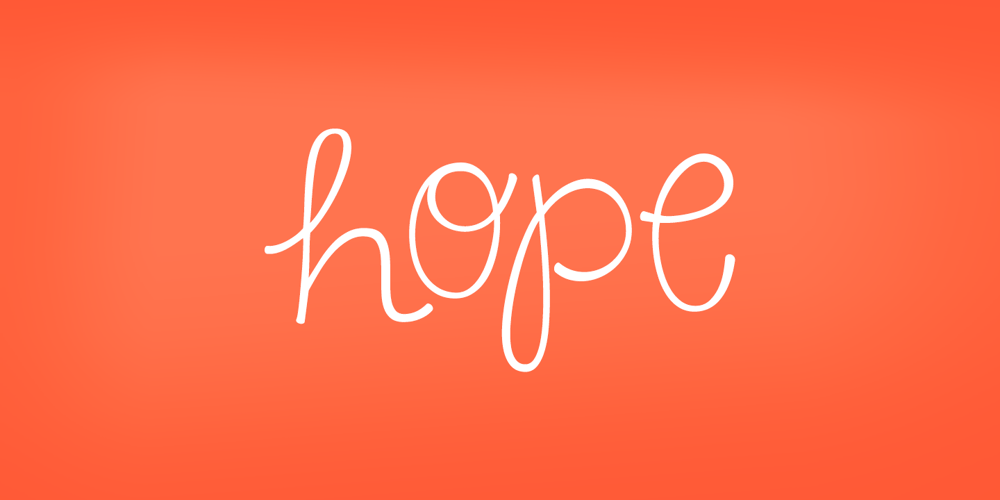
KG Say Something Font Family was designed by Kimberly Geswein and published by Kimberly Geswein. KG Say Something contains 1 styles and family package options. This quirky font features tons of personality in curls and swirls. Use it for titles & small snippets of text. (Don’t try turning a term paper written in this font!)